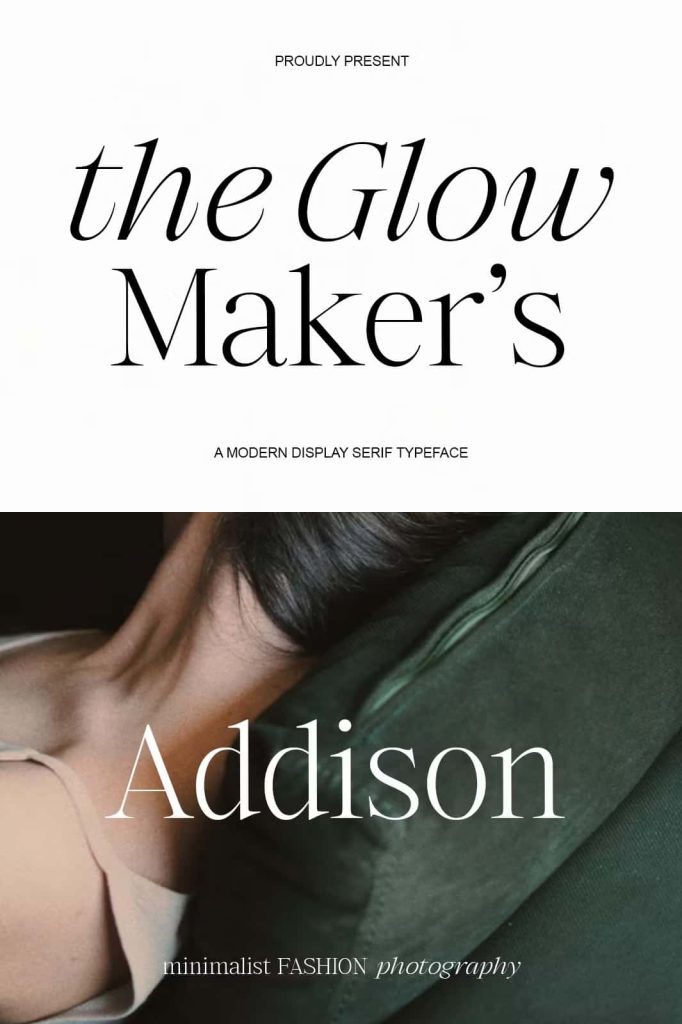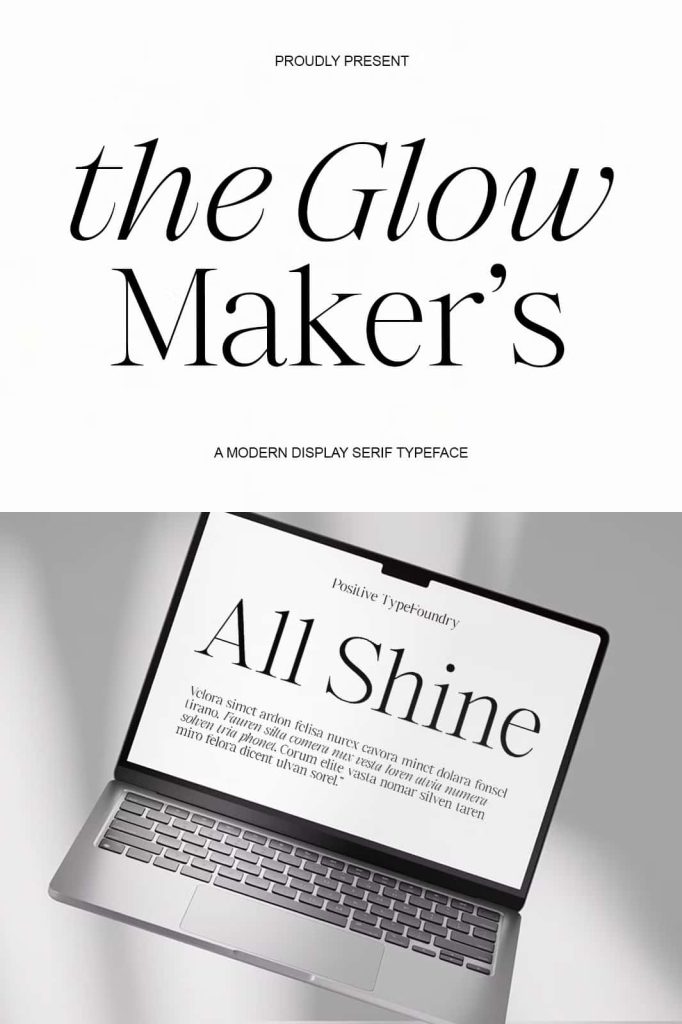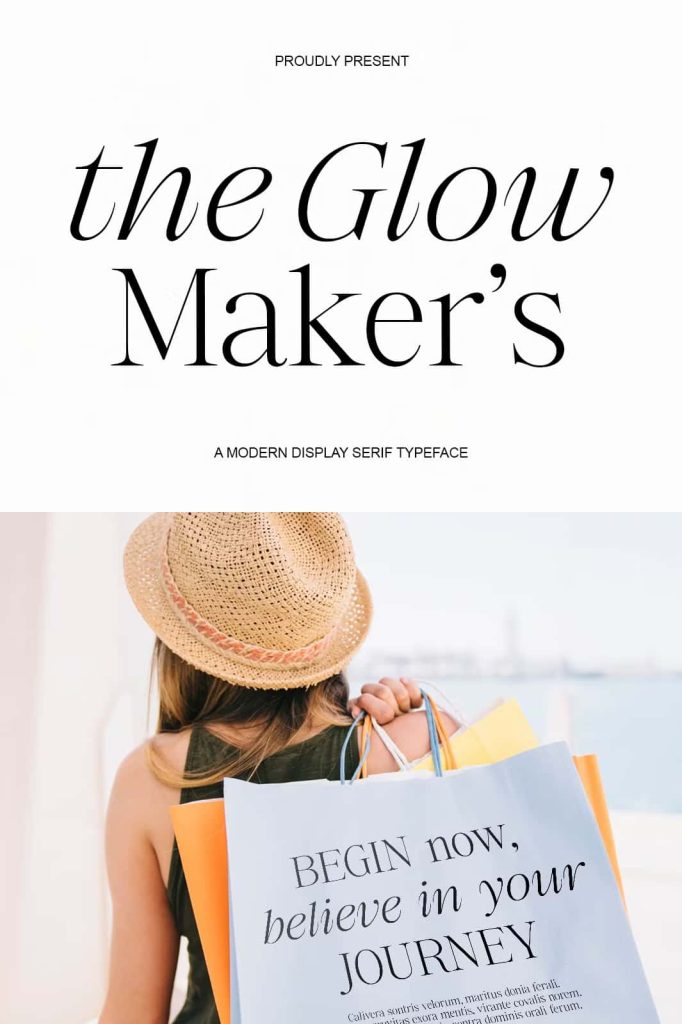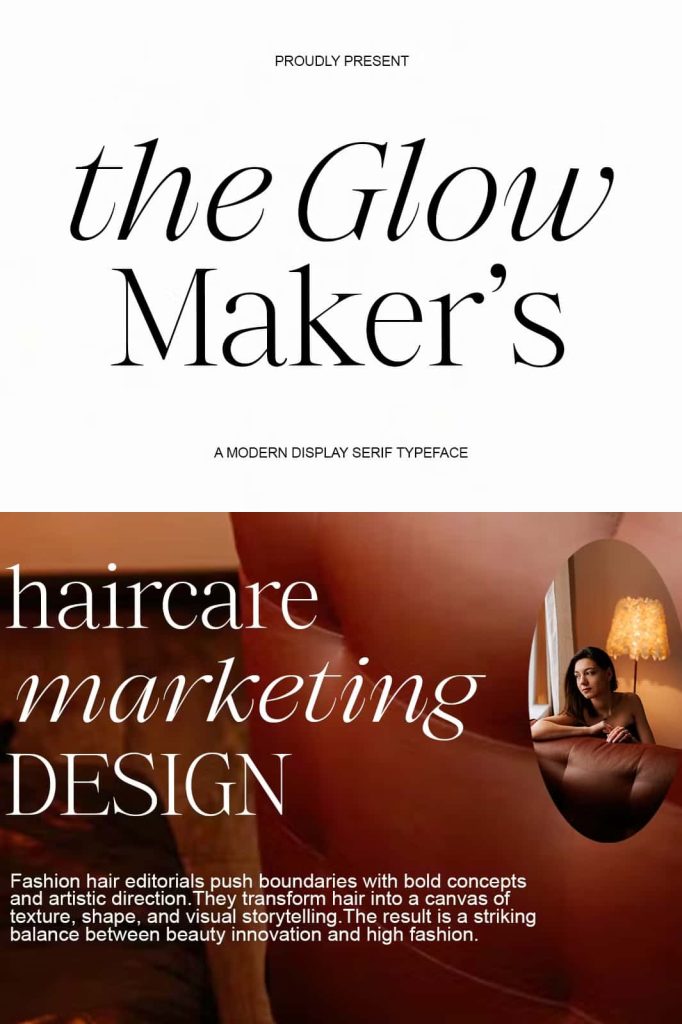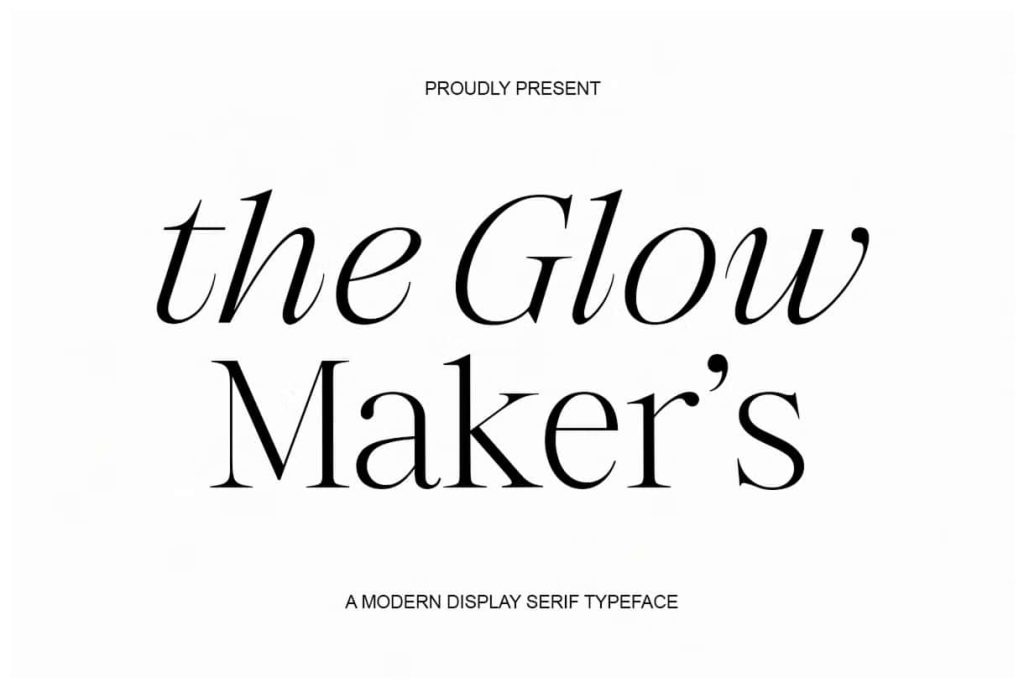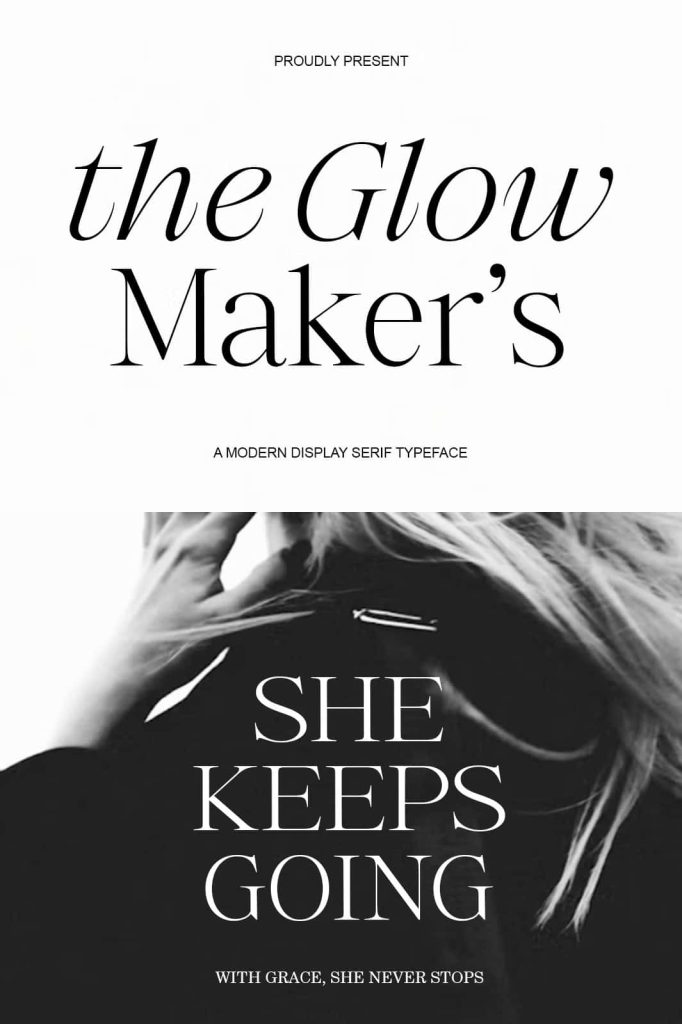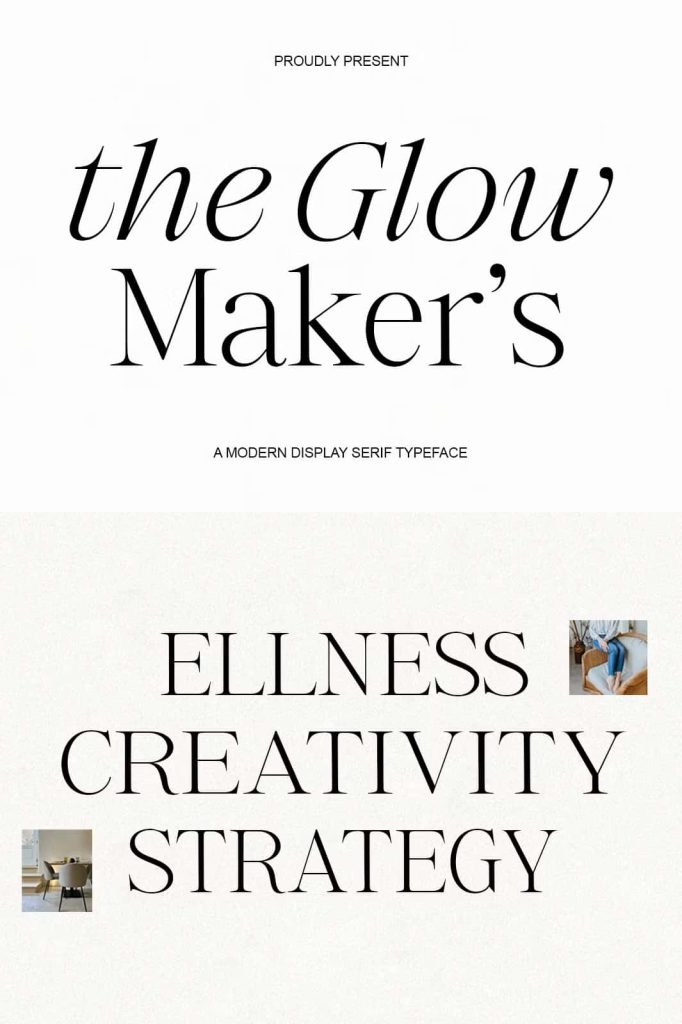
The Glow Maker’s is a modern display serif typeface that blends timeless elegance with a contemporary touch. Its refined contrast and graceful curves make it the perfect choice for designs that require sophistication, style, and a luxurious feel.